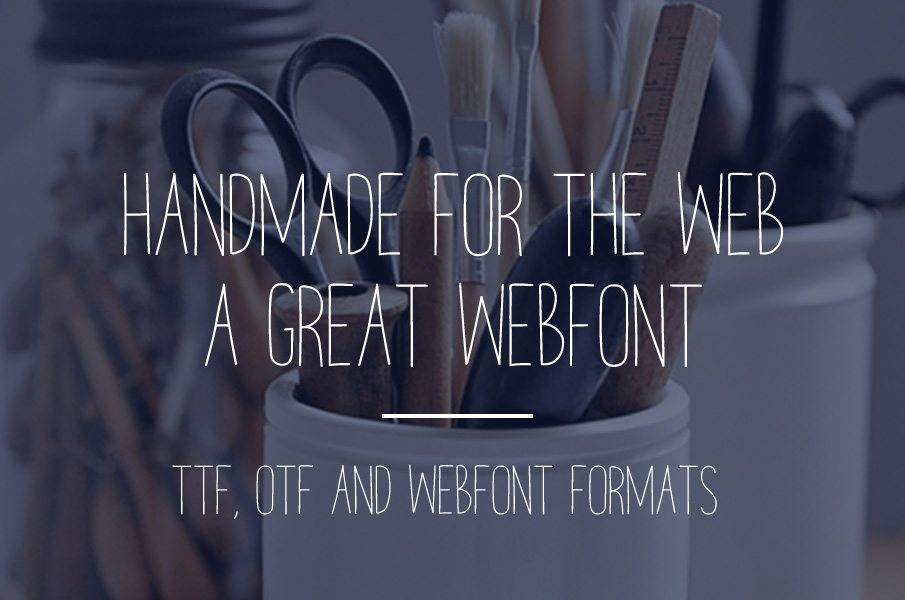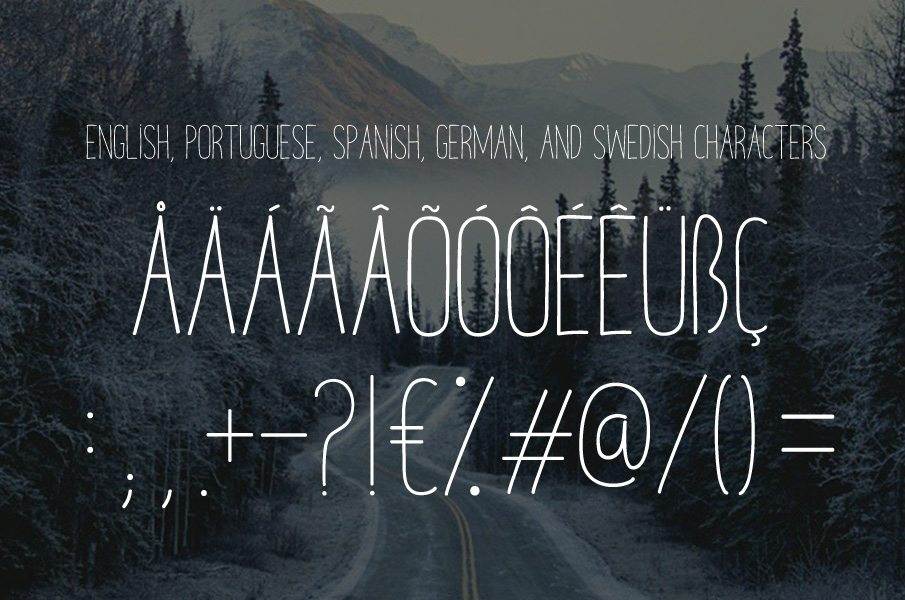
Free Font Of The Day #203 – Melo Font
Melo Font
Melo is an handmade free font designed by Marcelo Reis. It provides English, Portuguese, Spanish, German and Swedish characters.